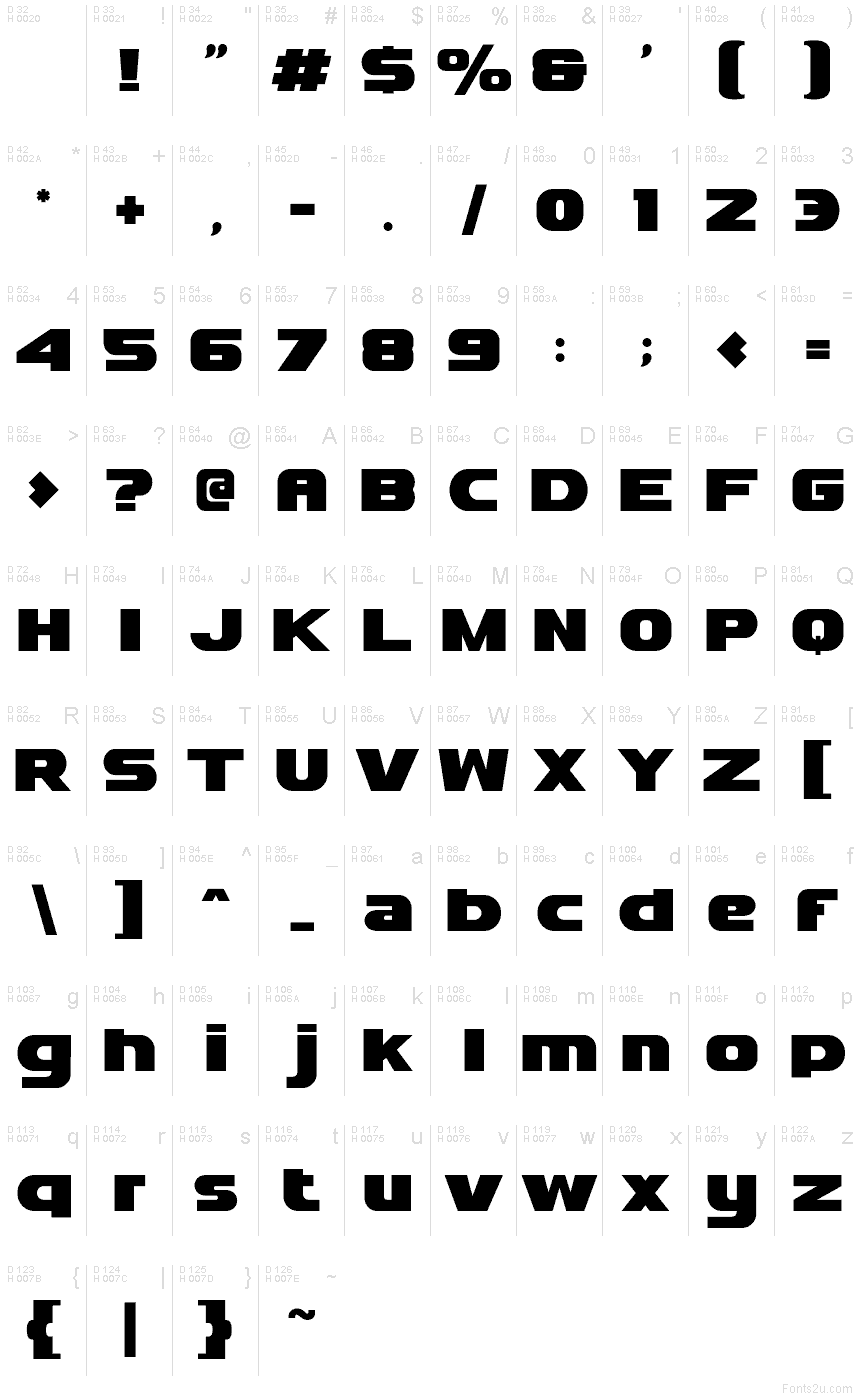
Marseilazi
Marseilazi font by PutraCetol Studio is a bold expanded sans display font with an industrial flavor. Although the characters aren’t perfectly geometric, they appear so at first glance with a design that is rounded, block-like, and modern. The versatile nature of this typeface allows it to work with headers just as well as it does with labels.
Get creative in your use of this free font for movie posters, music album covers, apparel labeling and branding, eye-catching mastheads for social media pages, company profile brochures, magazine layouts and covers, packaging designs for food or apparel products among others.